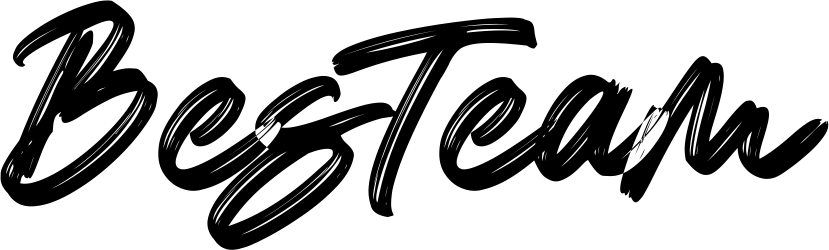
Besteam Font
Besteam is a brush font which comes with bold, natural, and flowing characters looking like actual handwritten notes.
Besteam provides you with everything you need to appear informal and approachable. Use it in branding, product packaging, videos, apps, social media posts as well as so many other design areas. It will fit the bill!